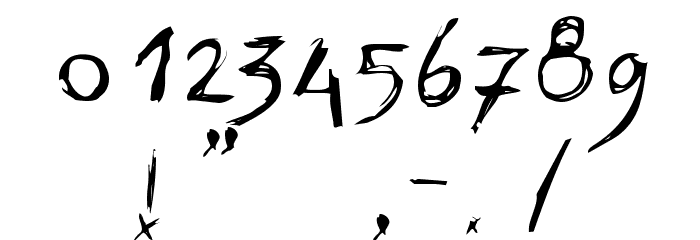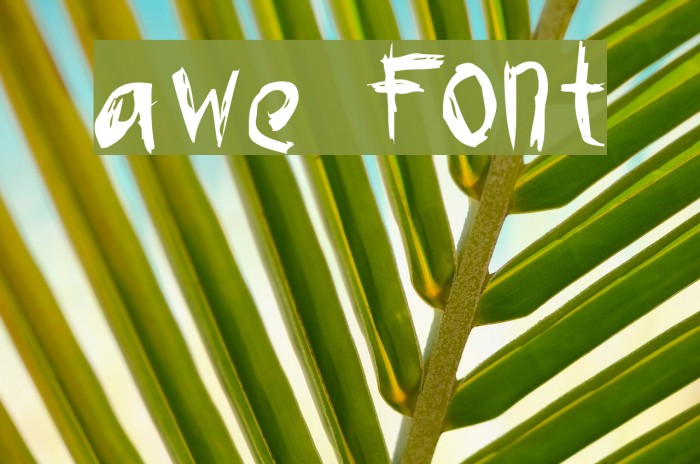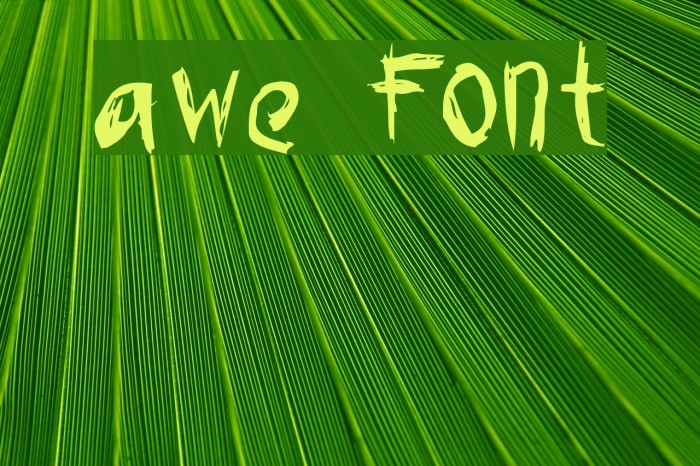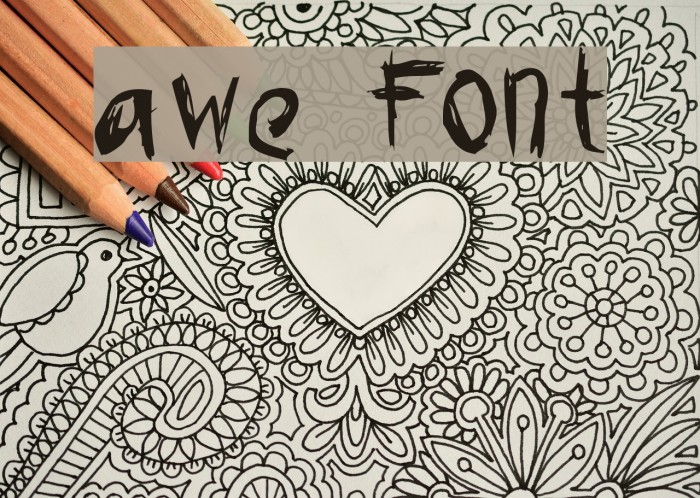
awe Font
This font features a bold, expressive style with a hand-drawn appearance. The strokes are irregular and dynamic, giving it an energetic and raw aesthetic. The characters have a rough, brush-like texture, with varying thickness that adds to its dramatic flair. The uppercase and lowercase letters maintain a consistent style, while the numerals and special characters complement the overall look. This font is ideal for projects that require a strong, artistic touch.
A bold, expressive font with a hand-drawn, brush-like texture.
- Proposed Projects: Perfect for album covers, posters, graffiti art, and edgy branding projects.